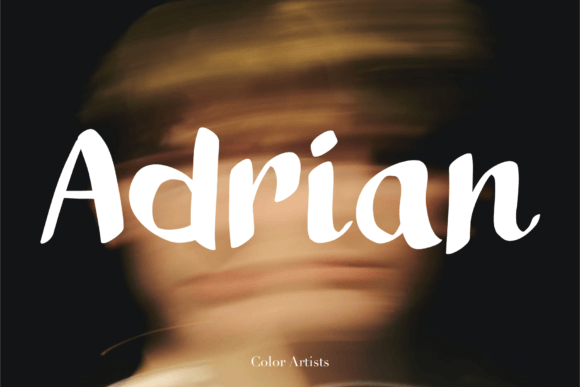
Adrian: A Versatile Creative Font for Modern Projects
When you're working on a design project, the font you choose does more than just display words. It sets the entire mood. It can make a brand feel trustworthy, a product feel luxurious, or a social media post feel energetic. That's why finding a typeface that is both visually striking and incredibly practical is a game-changer. Enter Adrian, a premium font designed to bridge the gap between aesthetic appeal and everyday functionality. It’s built for creators who need a reliable, stylish tool in their toolkit.
The Visual Personality of Adrian
At its core, Adrian is a modern typography solution that balances character with clarity. It avoids the extremes of being too stark or too decorative. Instead, it offers a clean, contemporary feel that feels approachable and professional. You'll notice subtle details in its letterforms that give it personality without sacrificing the legibility needed for longer text. It’s the kind of typeface that doesn’t scream for attention but quietly commands respect, making it a solid foundation for a wide range of design work.
This versatility means Adrian can adapt to your creative vision. Whether you're aiming for a sleek, minimalist aesthetic or something with a bit more warmth and flair, the font's inherent style provides a perfect starting point. It’s a creative font that understands its job is to support your message, not overshadow it.
Where Adrian Truly Shines: Practical Applications
The real test of any design asset is how it performs in the real world. Adrian excels because it’s designed with practical application in mind. Here’s a look at where it can make a significant impact:
Building a Cohesive Brand Identity
For logo design and broader brand identity systems, consistency is key. Adrian provides a unified visual voice. Use a bold weight for your primary logo to make it memorable, then use the regular or light weights for body copy on your website and marketing materials. This creates a seamless, professional look across all touchpoints, from your business cards to your email newsletters. A strong, consistent typeface like Adrian helps build recognition and trust with your audience.
Effective Marketing and Digital Content
In the fast-paced world of social media graphics and digital advertising, you have milliseconds to grab attention. Adrian’s clear letterforms work beautifully at both large display sizes for headlines and smaller sizes for subtext on platforms like Instagram or Facebook. For web design, it ensures your blog posts, product descriptions, and calls-to-action are easy to read, improving user experience and engagement. It’s a commercial font that understands the demands of digital spaces.
Print That Makes an Impression
Don’t limit Adrian to the screen. It’s equally powerful in print. For editorial design like magazines or lookbooks, it can create beautiful, readable spreads. In packaging design, it adds a touch of sophistication that helps a product stand out on the shelf. For entrepreneurs and small business owners creating flyers, menus, or reports, Adrian delivers a level of polish that elevates your printed materials.
Making the Most of Adrian: Practical Guidance
Choosing a font is just the first step. Using it effectively is what brings your project to life. Here are some practical tips for working with Adrian.
Evaluating Fit and Font Pairings
Before you commit, test Adrian in context. Mock up a headline, a paragraph, and a button. Does it capture the tone you’re after? Part of its strength lies in its ability to pair well with other fonts. Try combining Adrian with a simple sans serif font for body text to create a clean, modern contrast. Alternatively, pairing it with a subtle script font or handwritten font can add a personal, creative touch for projects like wedding invitations or boutique branding. A good font pairing creates visual interest and hierarchy.
Understanding Styles and Readability
Most professional fonts come with a family of styles, and Adrian is no exception. Take time to explore the different weights and italics available. Using a semi-bold for subheadings and a light for captions can add depth to your layout without introducing another typeface. Always prioritize readability. Check that your chosen size and color contrast ensure the text is comfortable to read, whether on a mobile screen or a printed page. Good typography guides the reader’s eye effortlessly.
Ultimately, Adrian is more than just a collection of letters. It’s a thoughtfully crafted tool designed to help you communicate more effectively. By understanding its personality and applying it with intention, you can create designs that are not only beautiful but also clear, consistent, and impactful. It’s the kind of versatile asset that, once you start using it, you’ll wonder how you managed without it.